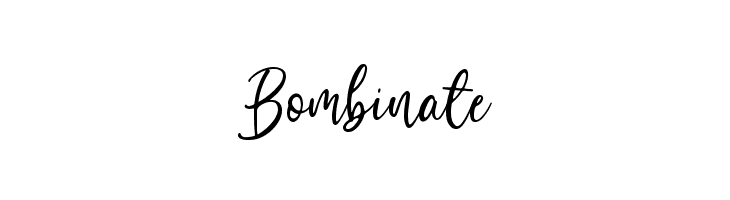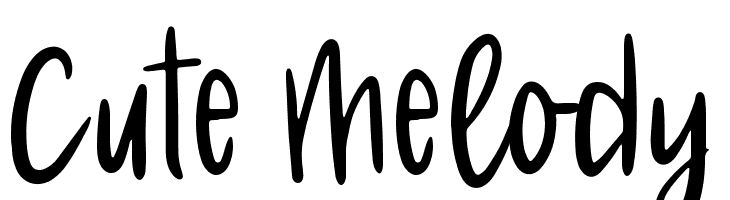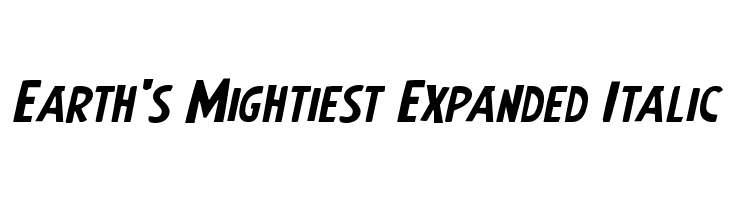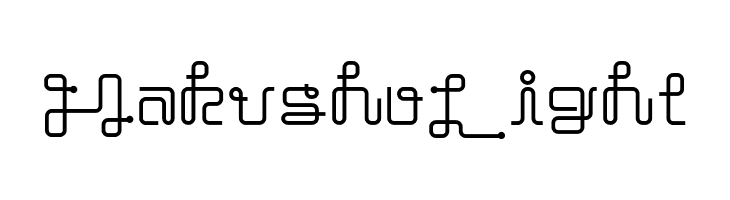
A playful, handwritten font with bold, irregular strokes and a whimsical charm.
A dynamic, expressive handwritten font with fluid cursive letterforms.
A playful handwritten font with a casual and friendly style.
A bold, angular font with a dynamic, modern style.
A modern, semi-bold sans-serif font with tall, narrow characters.
A bold, cursive font with elegant, flowing script and ornate uppercase letters.
A light, elegant serif font with a slight italic slant and classic charm.
A flowing, cursive font with elegant, sweeping strokes and calligraphic style.
A casual handwritten font with a dynamic and lively appearance.
A whimsical and flowing script font with elegant, fluid letterforms.